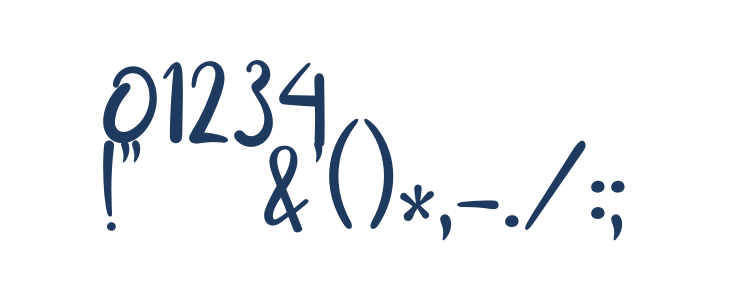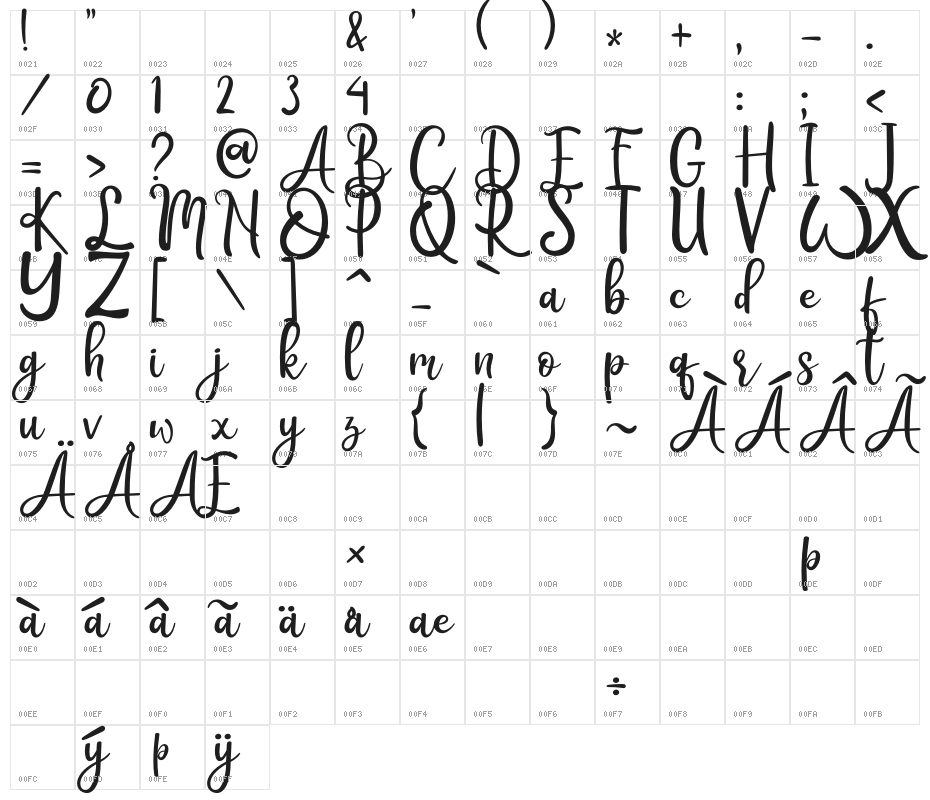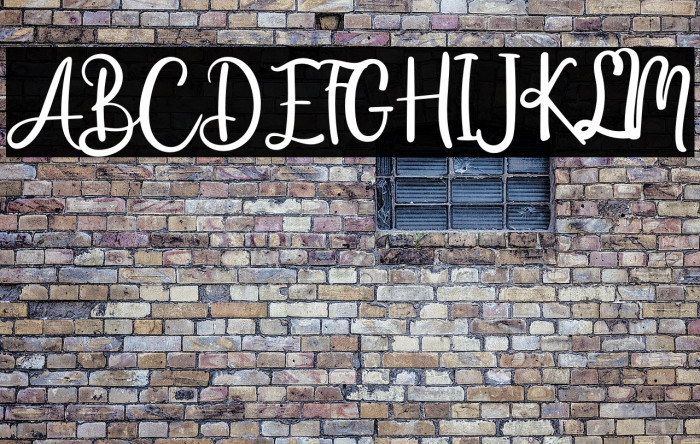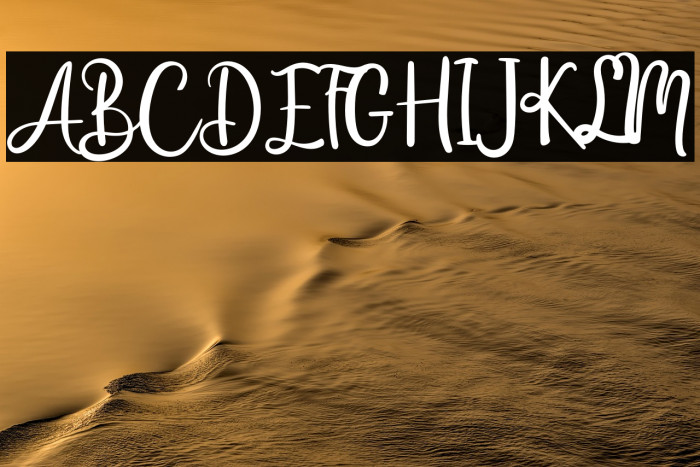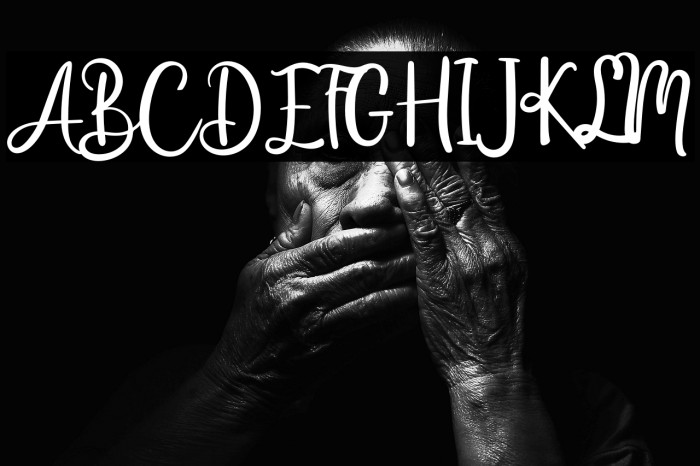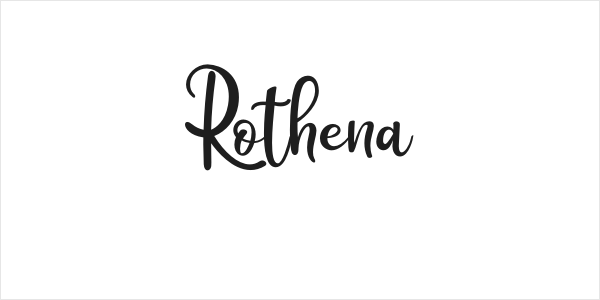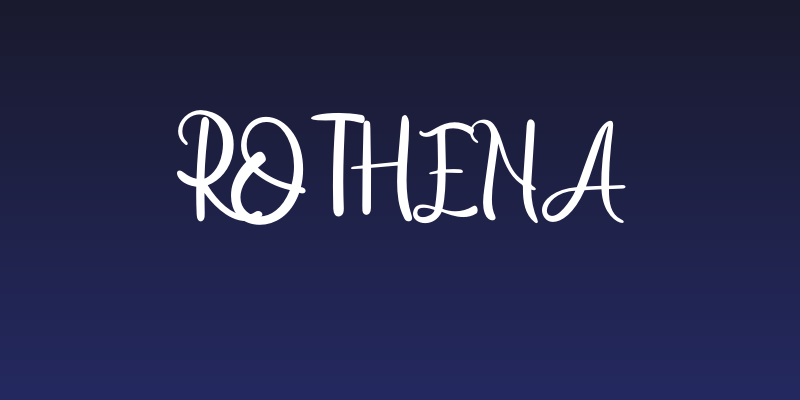
Rothena Font
Rothena Description
This font features a playful and artistic script style, characterized by its flowing, cursive letterforms. The uppercase letters are bold and expressive, with a whimsical flair that adds a sense of movement and energy. The lowercase letters maintain a consistent style, with smooth curves and elegant loops that enhance its handwritten appearance. The numbers are bold and clear, ensuring readability while maintaining the overall aesthetic. Special characters are creatively integrated, complementing the font's artistic nature. This font is perfect for projects that require a personal touch, such as invitations, greeting cards, or branding materials.